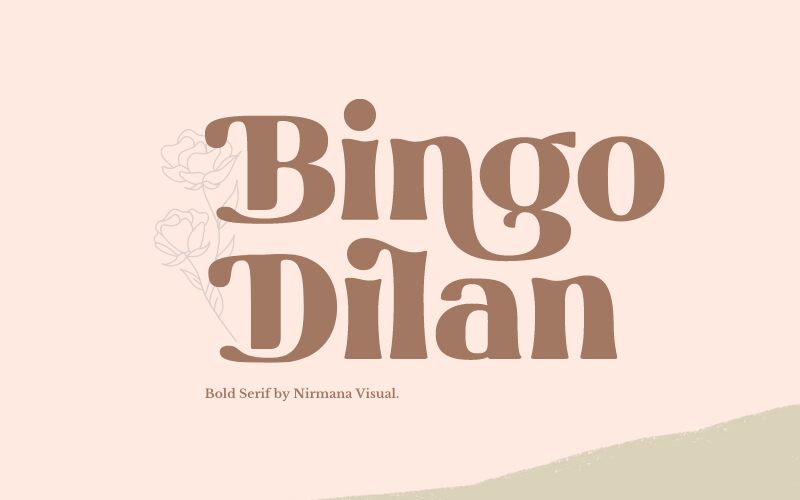
Bingo Dilan, a ravishing display font by Nirmana Visual, is the perfect typeface to add a touch of retro charm and boldness to your creative projects. With its striking design and robust weight, this font is ideal for eye-catching titles, captivating logos, engaging posters, or even vintage-themed websites. Elevate your designs with Bingo Dilan's captivating presence and let its distinctive retro style transport your audience back in time. Unleash your creativity and infuse a dash of nostalgia into any project with this bold beauty!
Bingo Dilan by Nirmana Visual,
Bingo Dilan